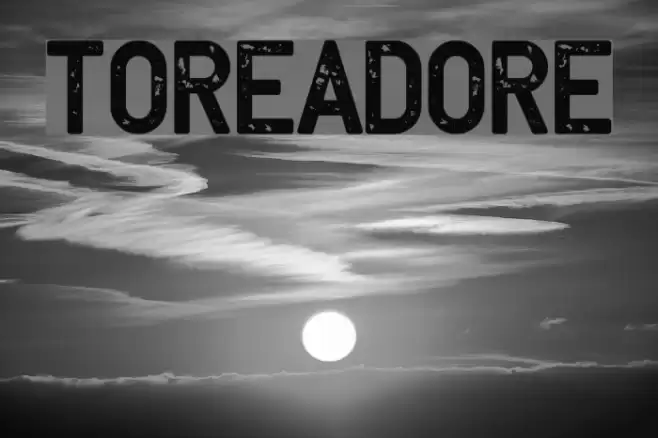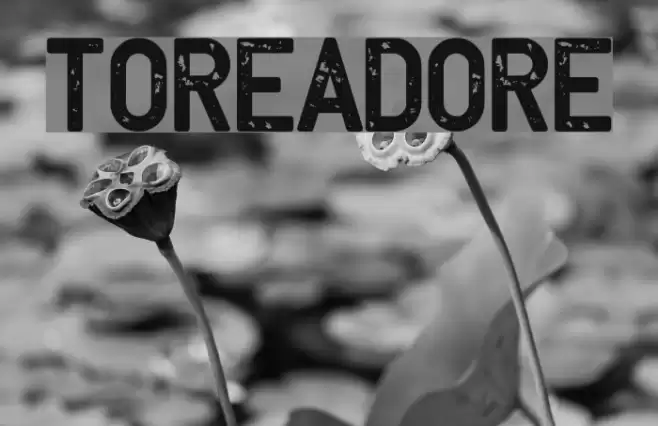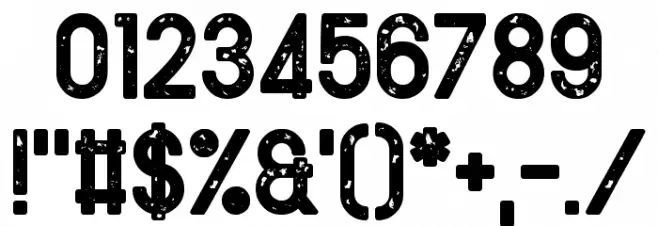
Toreadore Font
Toreadore Description
This font features a bold, distressed style with a textured, worn appearance. The characters are uppercase and numerals, each exhibiting a rough, weathered look that adds a vintage and rugged feel. The font is highly legible despite its decorative elements, making it suitable for impactful designs. The edges are slightly rounded, contributing to its approachable yet strong aesthetic. The distressed effect is consistent across all characters, providing a cohesive look that is ideal for projects requiring a bold statement.
A bold, distressed font with a vintage, rugged appearance from Uncategorized fonts.
- Proposed Projects: Ideal for posters, branding, album covers, and any design requiring a bold, vintage aesthetic.
- Overall Style: Vintage